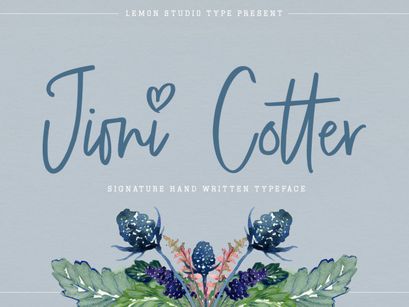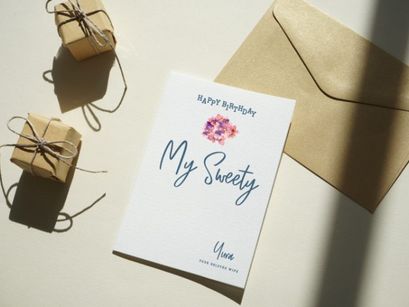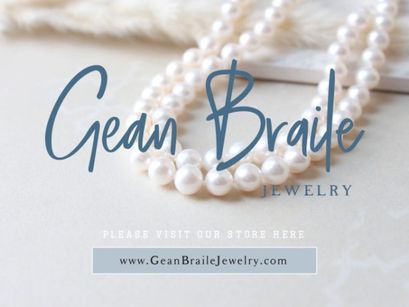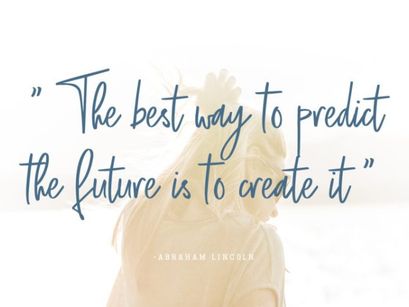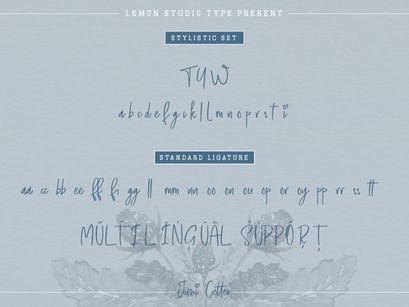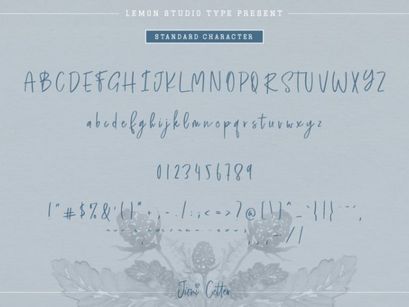
Jioni Cotter | Handwritten Font
Jioni Cotter is a flowing handwritten font, described by a natural and elegant touch. So like with its incredibly distinct and timeless style. Perfect for wedding designs, birthday cards, mockup designs, beautiful headings, or any project you need. It is created by Herpin Maulana (https://www.behance.net/herpin_maulana)
• Standard Character Set
• Opentype Features
• Stylistic Set
• Standard Ligature
• Multilingual Support, etc.